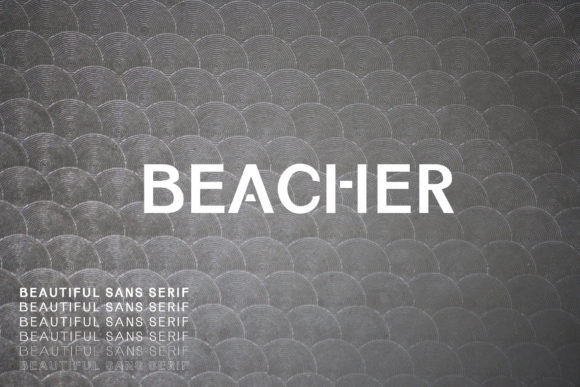
Step into the world of Beacher Family Font, a mesmerizing sans serif font that blends classic elegance with a touch of contemporary flair. Its sharp, clean lines and graceful curves dance together to create a visual symphony, capturing the attention of all who behold it. This font is a true masterpiece, lovingly crafted by the talented artists at Creative Tacos, who poured their heart and soul into every stroke and curve.
The Beacher Family Font is a versatile chameleon, effortlessly adapting to a wide range of creative projects. Whether you're crafting an invitation for a special occasion, designing a sleek logo for your business, or creating eye-catching social media graphics, this font will elevate your designs to new heights. Its distinct charm and timeless appeal will add a touch of sophistication and elegance to any project you undertake.
With Beacher Family Font, you'll embark on a typographic adventure that will leave you breathless. Its clean lines and crisp edges evoke a sense of order and precision, while its playful curves inject a touch of whimsy and delight. This font is a perfect choice for those seeking a font that exudes both professionalism and personality.
Say goodbye to bland and boring fonts. Embrace the beauty and charisma of Beacher Family Font, and watch your designs come alive with newfound energy and vibrancy. Take your creative projects to the next level and leave a lasting impression on your audience with this exceptional font.
Dive into the world of Beacher Family Font today and let your creativity soar!